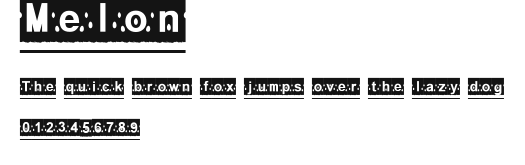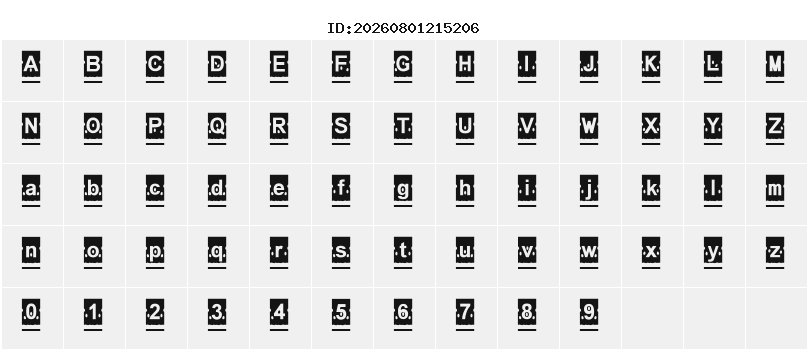
• Font Name: Melon
• Font Style: MelonSlices
• Full Font Name: MelonSlices
• PostScript Name: MelonSlices
About Melon.ttf
Melon.ttf is a modern, elegant sans-serif font designed for ultimate readability and visual harmony. Perfect for branding, headlines, web design, and print materials.